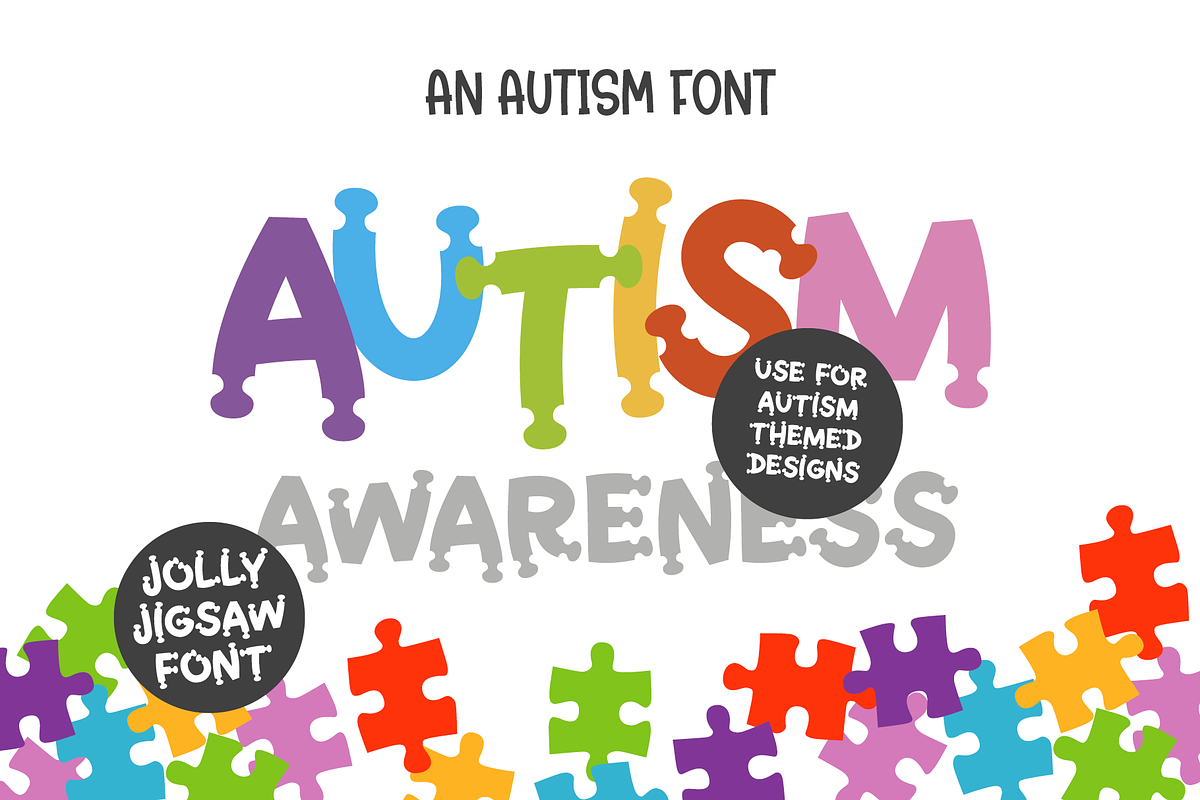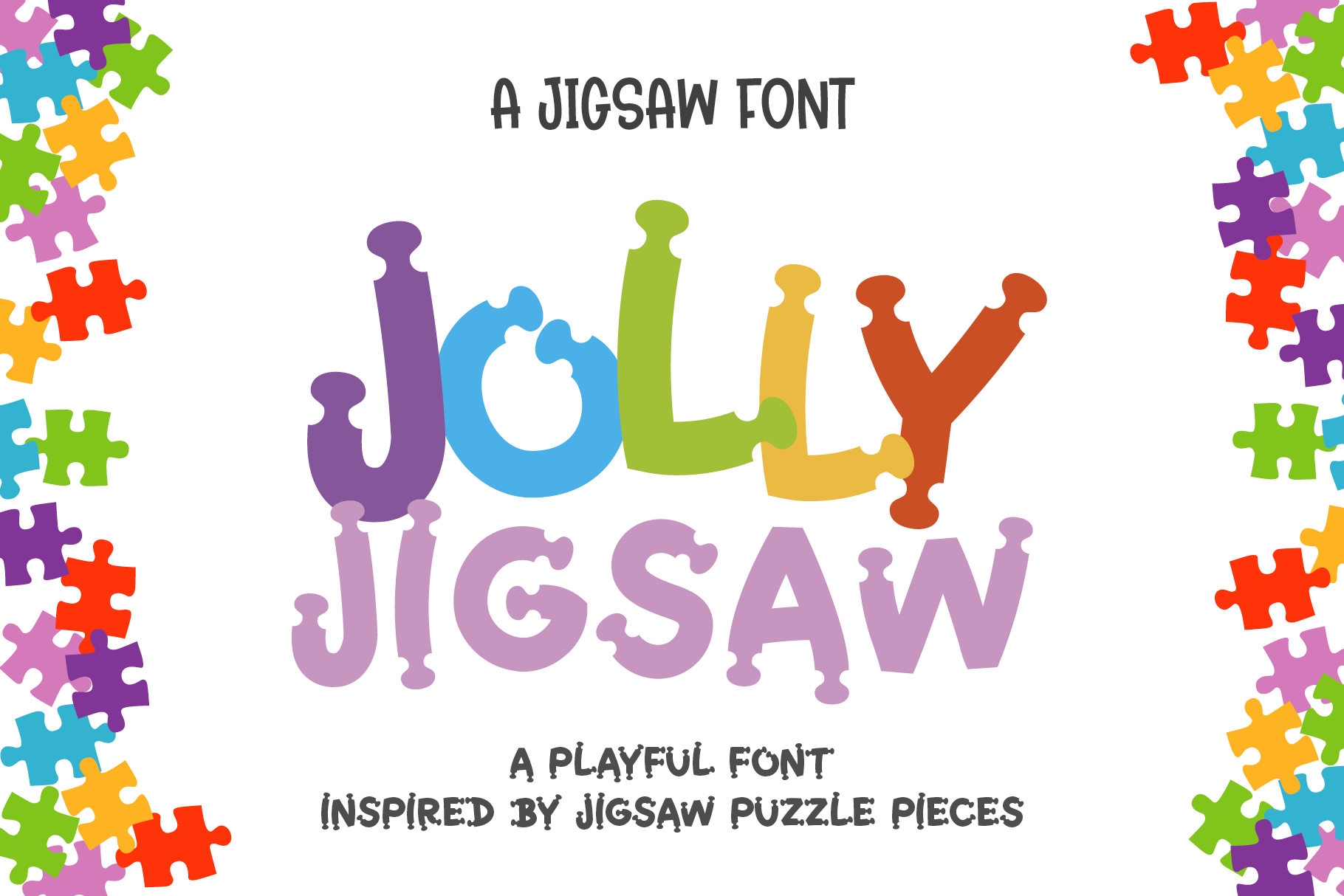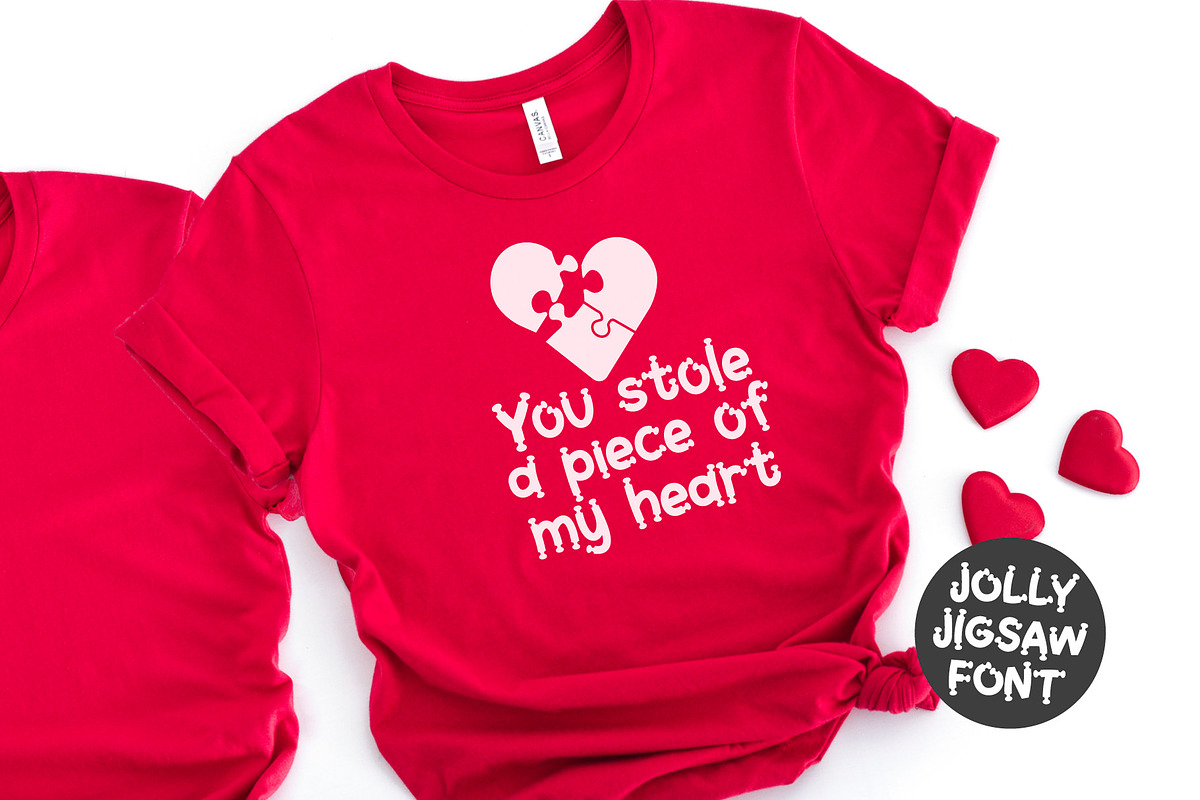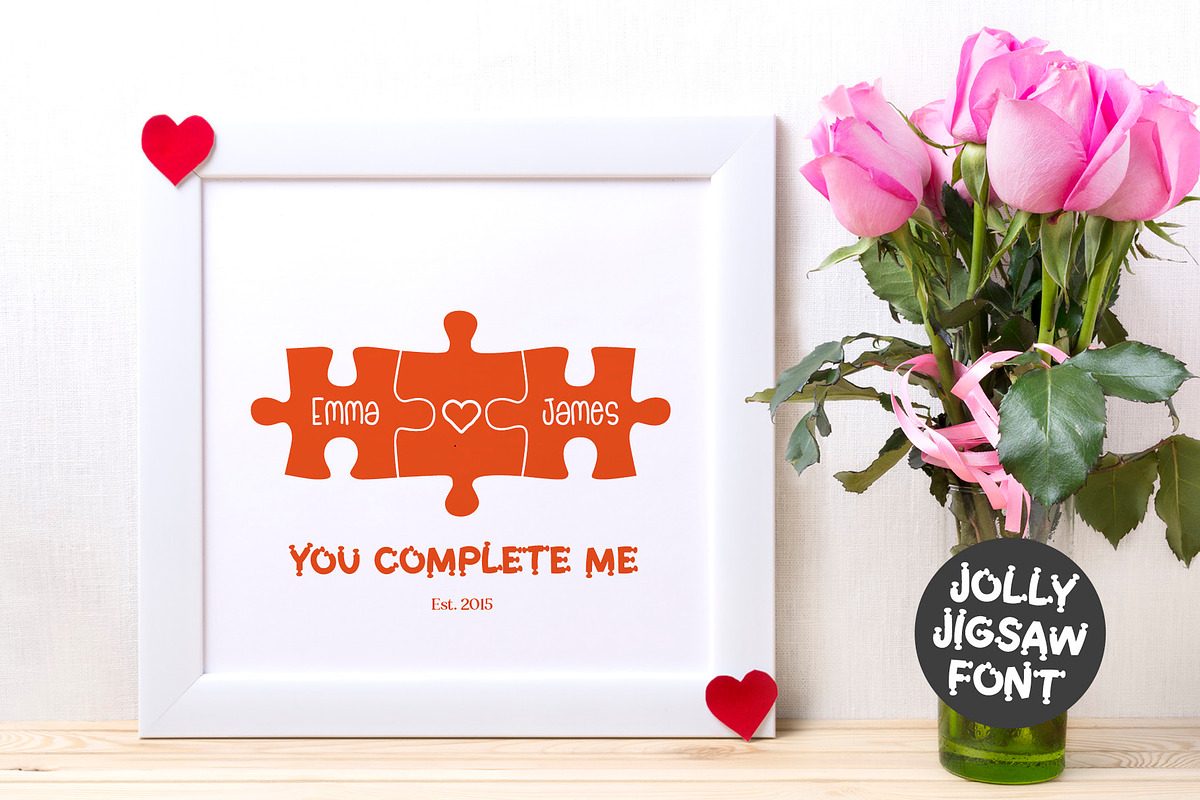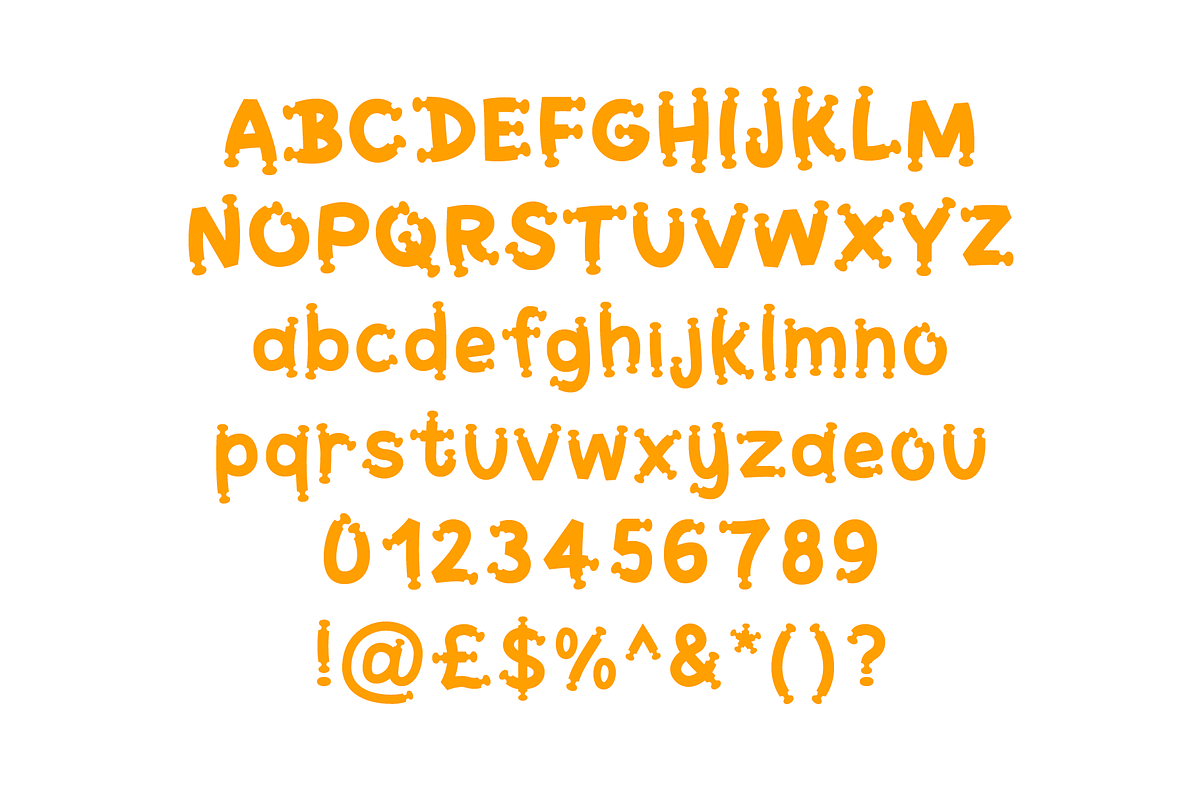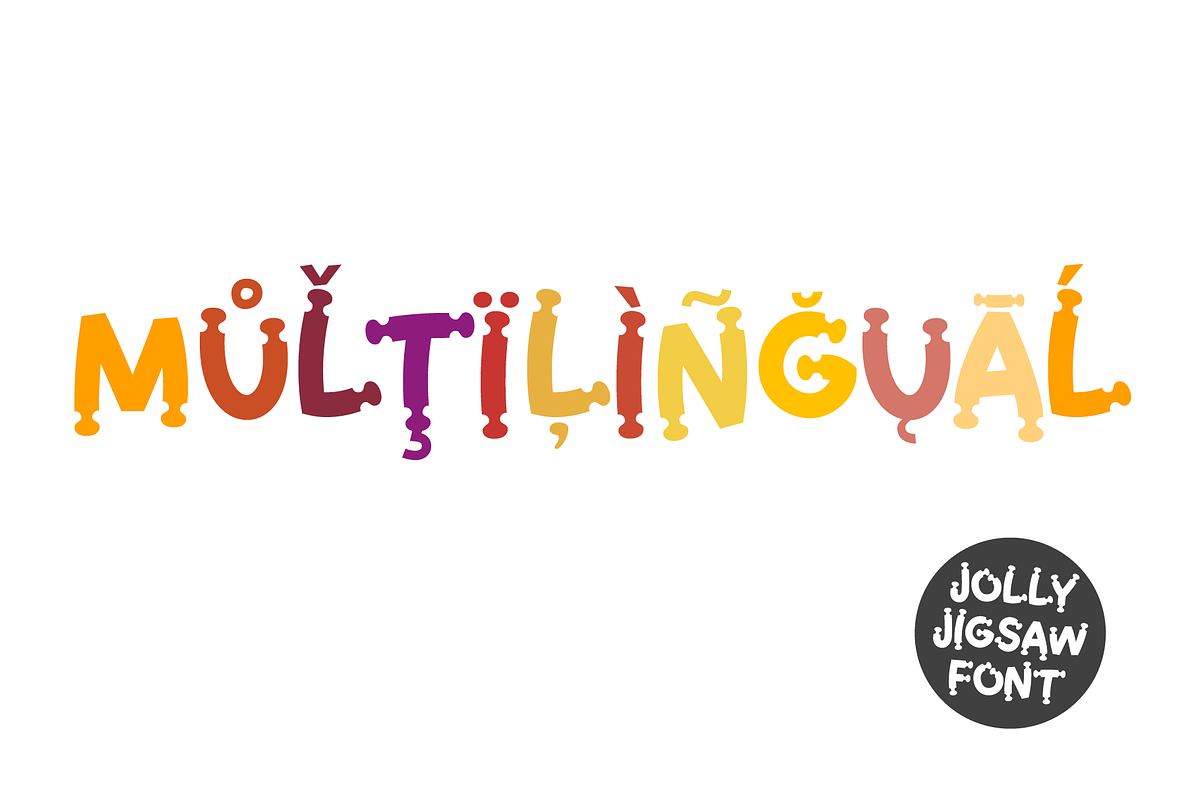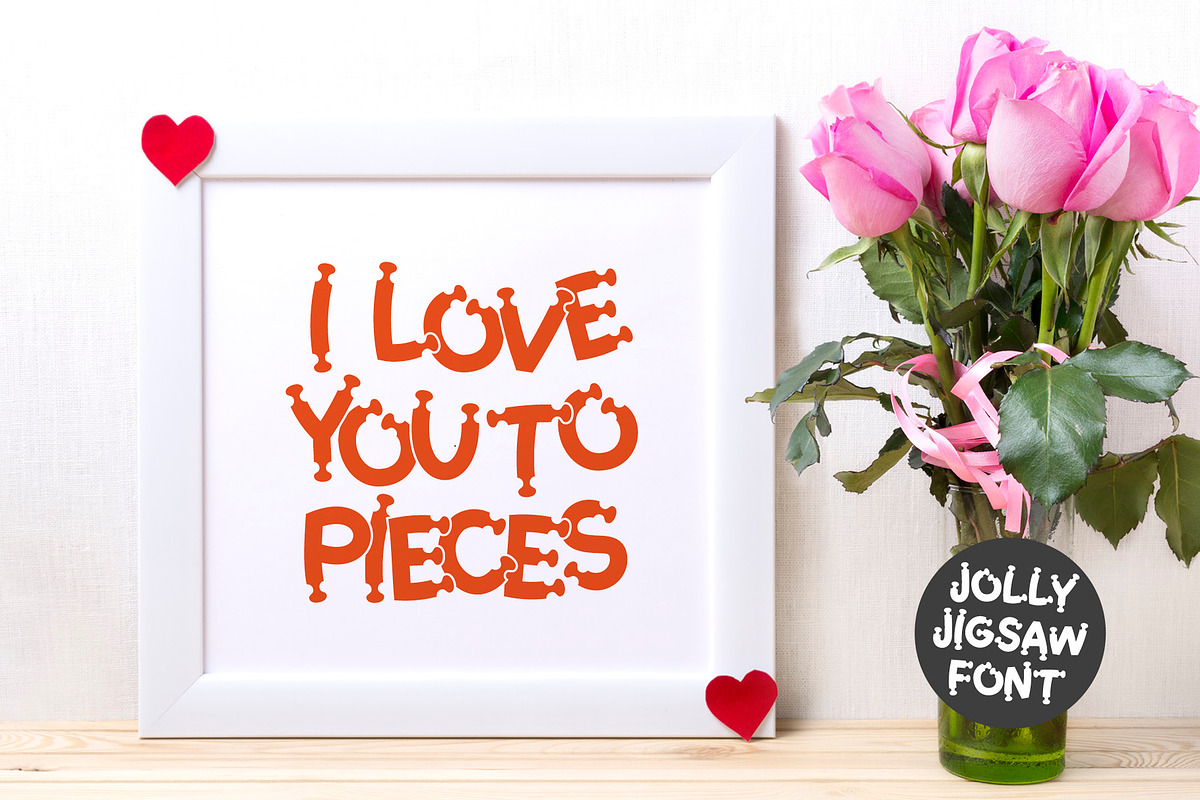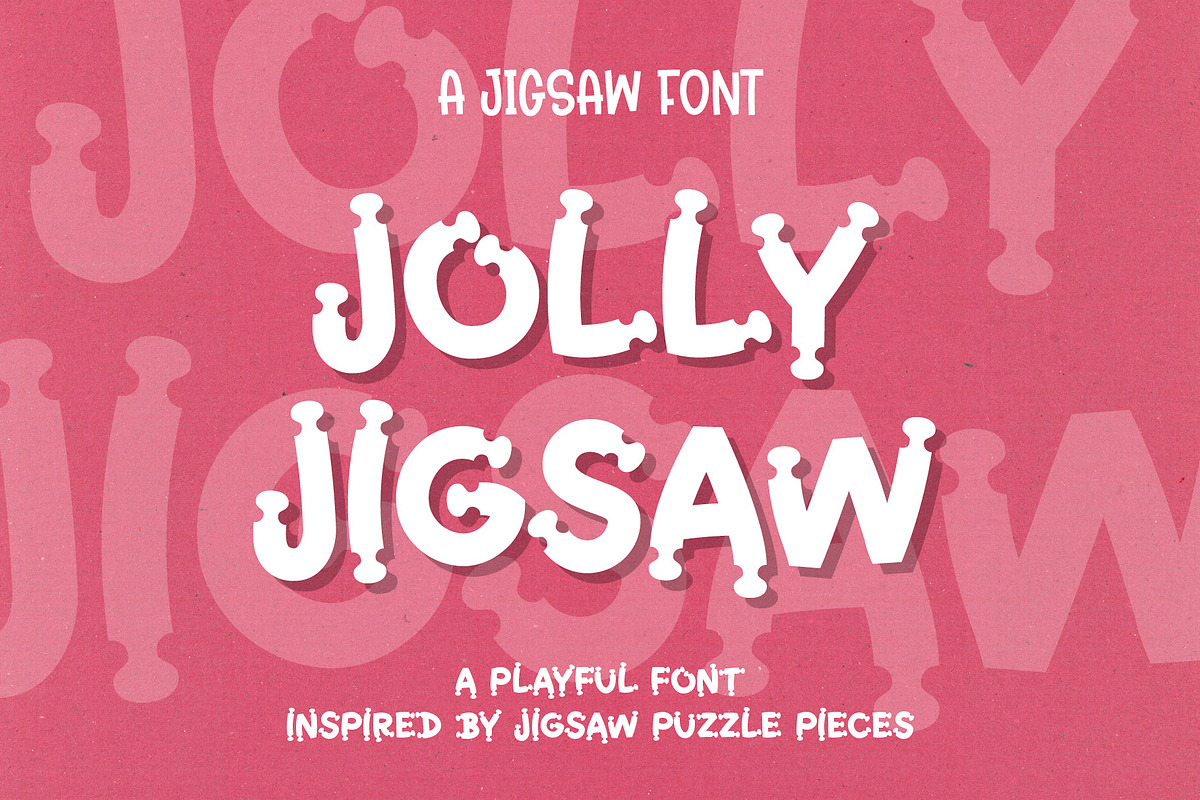
JOLLY JIGSAW | Jigsaw Puzzle Font
Inspired by jigsaw puzzle pieces, it's playful, quirky and lots of fun! A display typeface.
All letters include the connecting ears of a jigsaw piece and, in some cases, these ears can be overlapped on other letters to create adjoining pieces (although this is not always the case). Above all, the Jolly Jigsaw font was designed to be fun and legible with a hint of jigsaw puzzle pieces rather than as actual jigsaw pieces.
We also felt this font would work really well for valentines designs and as an autism based font. Use for anything bold, colorful and quirky!
This jigsaw font can look great on t-shirts, mugs, hats, tumblers... whatever your project requires!
We recommend using this jigsaw puzzle font for headlines and titles. It looks great in ALL CAPITALS! You may need to manually rotate, scale and position each individual letter to create nice looking arrangements.